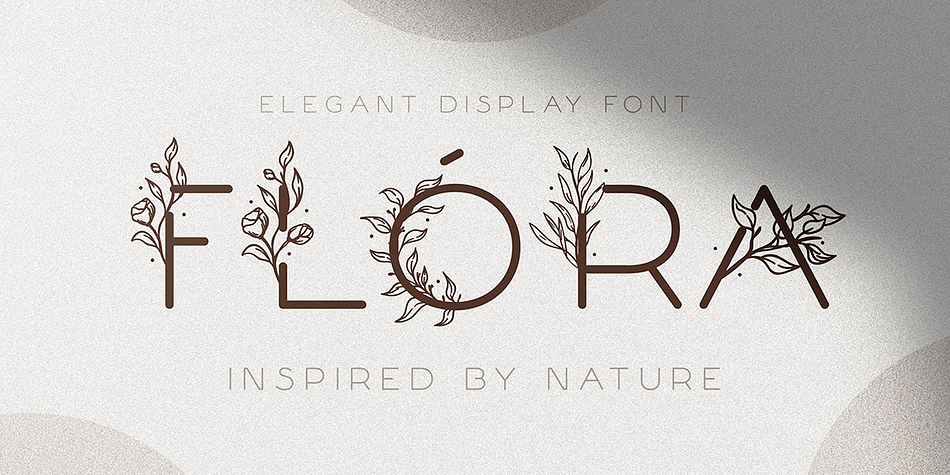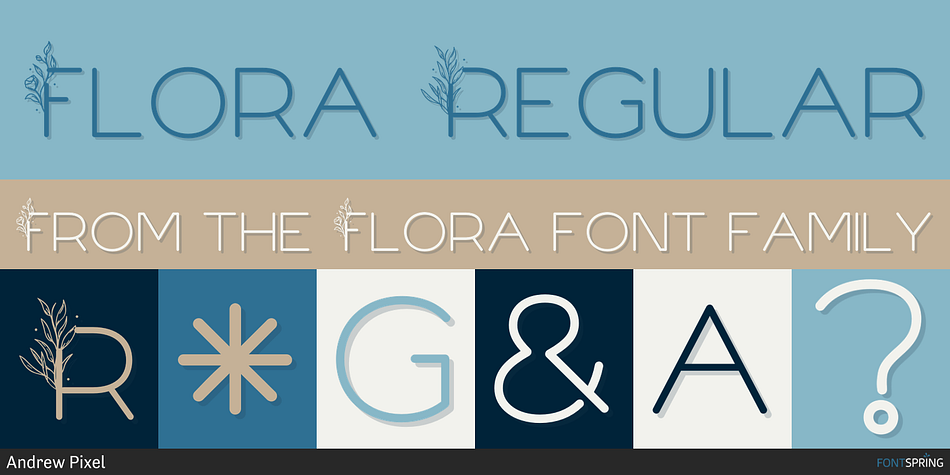
FLORA REGULAR
Flora is a display sans font family published by Andrew Pixel.
Introducing Flóra - A Delicate Floral Font with Flowers and Leaves
It’s an elegant and feminine font suitable for all kinds of headlines and decorative purposes. It’s a perfect font for, all kinds of wedding stationery, invitations, natural logos, flower shops, packaging, social media posts and so much more!
The font also supports a basic set of multilingual glyphs.